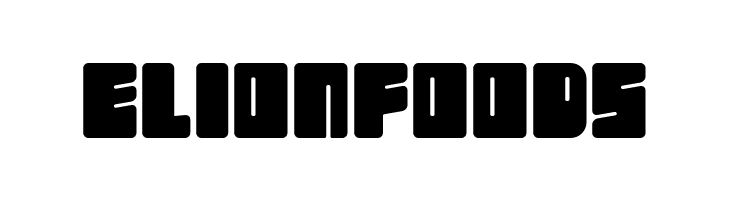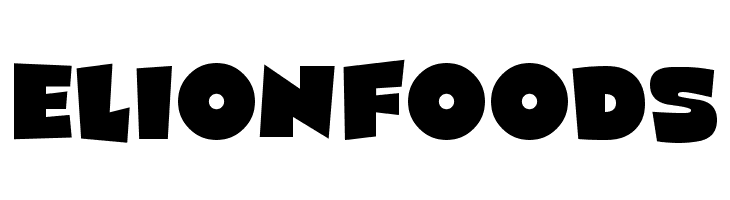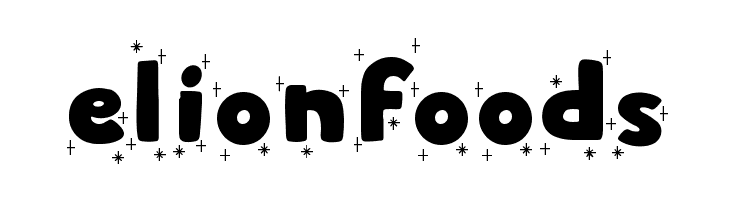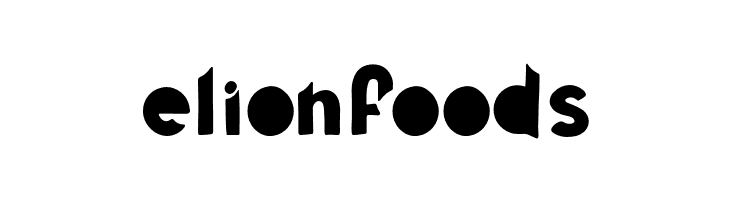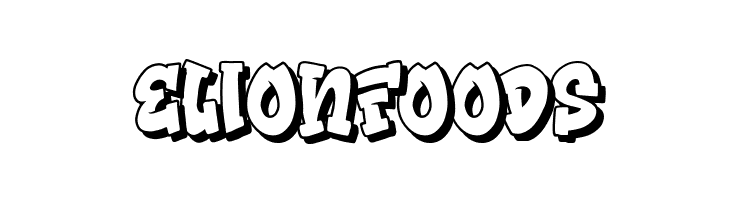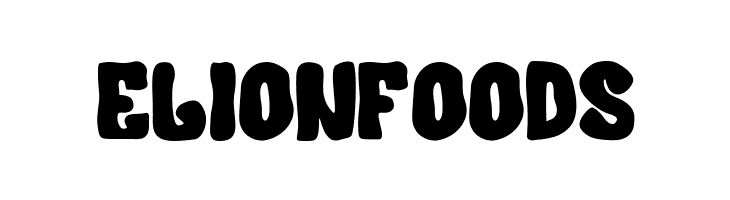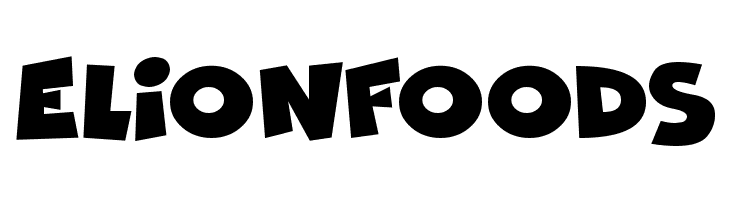
A bold, blocky font with a playful, retro-modern style.
A bold, playful slab serif with thick, uniform strokes and a slightly rounded finish.
A playful, bold font with rounded letters and festive accents, perfect for cheerful designs.
A bold, playful font with star-like sparkles, perfect for festive and whimsical designs.
A playful, bold font with a hand-carved, Halloween-inspired style.
A bold, winter-themed font with snow-capped letters, perfect for festive designs.
A playful, festive font with decorative, handcrafted elements.
A bold, playful font with a three-dimensional shadow effect.
A bold, playful font with rounded edges and a vintage feel.
A bold, playful font with exaggerated, uneven letterforms.